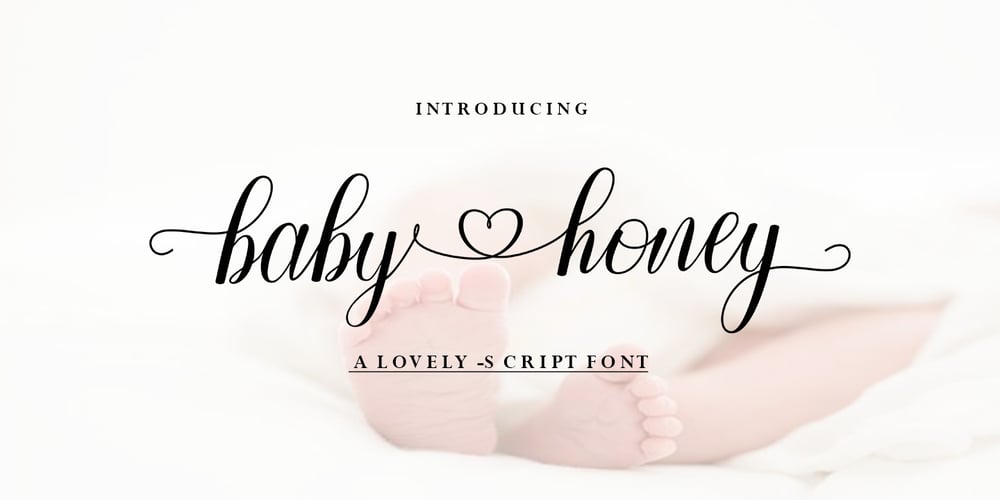
Baby Honey
Baby Honey font
Baby Honey Font Family was designed by Rahmad Rizky and published by Rhd Studio. Baby Honey contains 1 styles and family package options. Baby honey – lovely script font is a sweet, romantic calligraphy typeface with characters dancing along baseline. It has a casual yet elegant touch. It can be used for various purposes such as logos, wedding invitations, titles, t-shirts, letterheads, name boards, labels, news, posters, badges etc.The font includes OpenType features with alternative styles, ligatures, and multiple language support.To enable OpenType Stylistic alternates, you need a program that supports OpenType features such as Adobe Illustrator CS, Adobe Indesign & CorelDraw X6-X7, Microsoft Word 2010 or a later version.There are additional ways to alternate / swash, using the Character Map (Windows), Nexus Font (Windows), Font Book (Mac) or a software program like PopChar (for Windows and Mac).How to access all alternative characters, using Windows Character Map with Photoshop: https://www.youtube.com/watch?v=Go9vacoYmBwHow to access all alternative characters using Adobe Illustrator:http://youtu.be/iptSFA7feQ0How to use a style font set in Microsoft Word 2010 or later versions:https://youtu.be/x1A_ilsBsGs